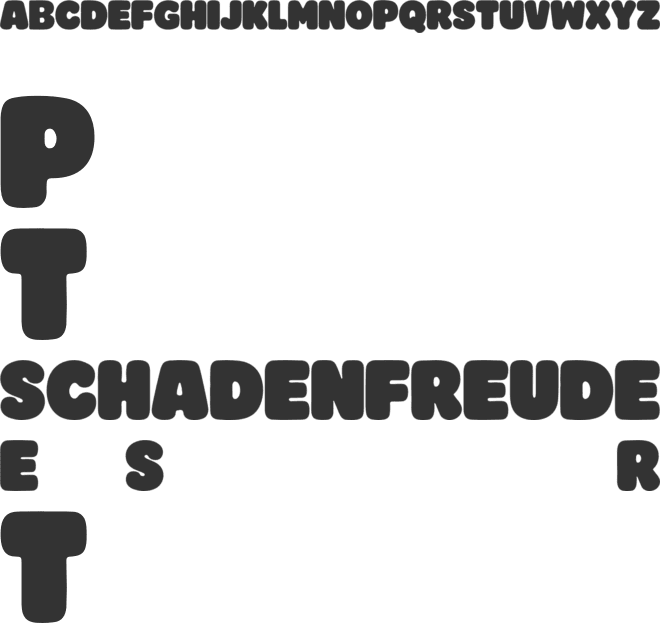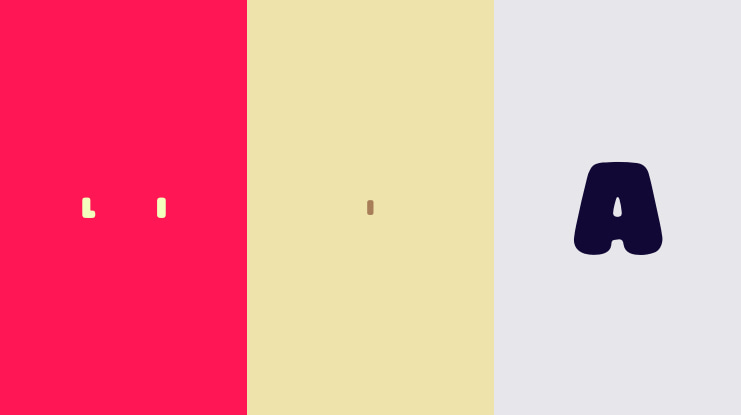
TITAN Font
🎨 Font Name: TITAN by Minimalist Art Studio
🎨 Font Description: Voltage is a tall, condensed sans serif font in Regular and Italic styles—perfect for bold headlines, modern branding, tech interfaces, and minimalist layouts; free for subscribers and built to energize your design flow.